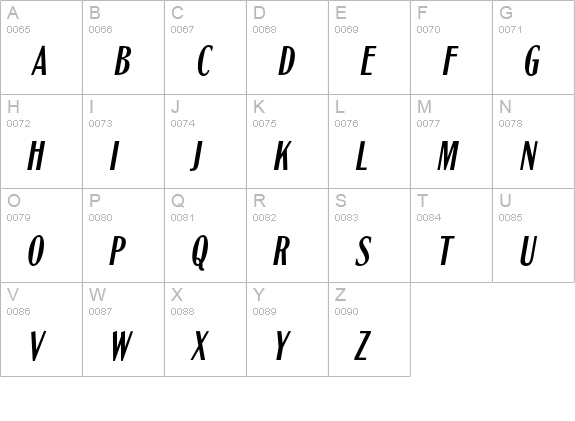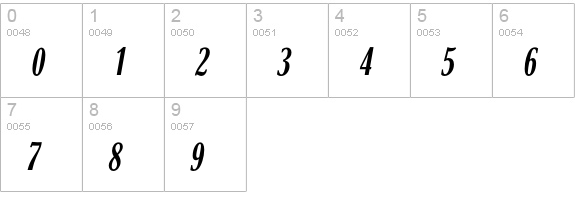
GlobeExCondL-Oblique is a distinctive, italic variant in the GlobeExCondL typeface family \xE2\x80\x94 well suited to design and typography projects.
GlobeExCondL-Oblique is a sleek and modern font that exudes sophistication and style. Its slanted design adds a dynamic touch to any project, making it perfect for logos, branding, and headlines. This versatile font is free to download at FontsMarket.com, where you can access its full range of characters and symbols. With its clean lines and elegant curves, GlobeExCondL-Oblique is sure to make a bold statement in any design. Whether you're creating a website, poster, or business card, this font will add a touch of professionalism and flair. Elevate your projects with GlobeExCondL-Oblique and let your creativity shine.